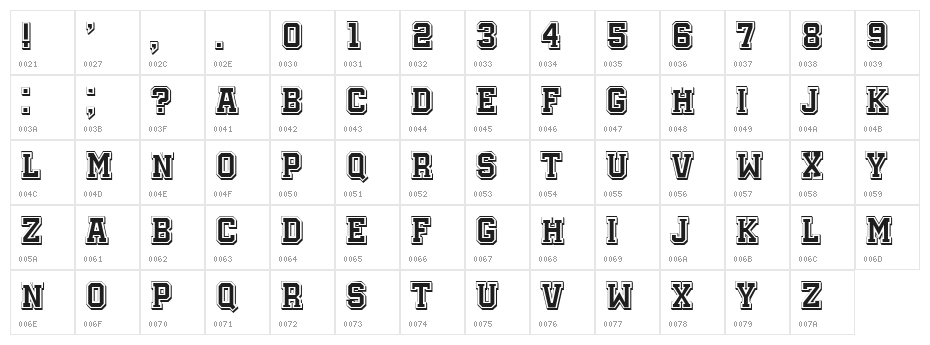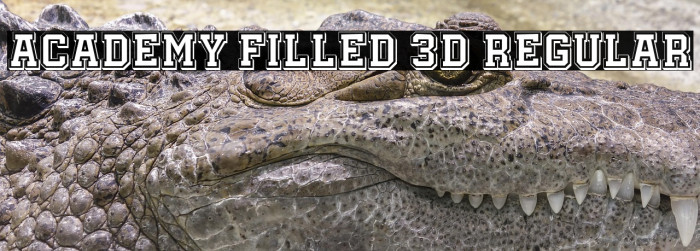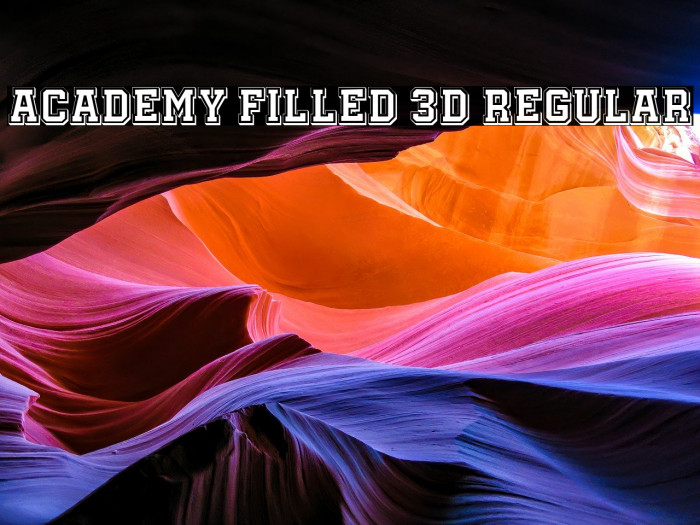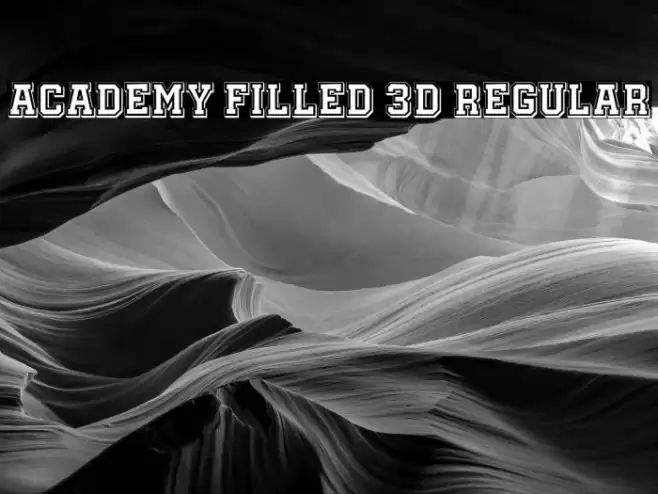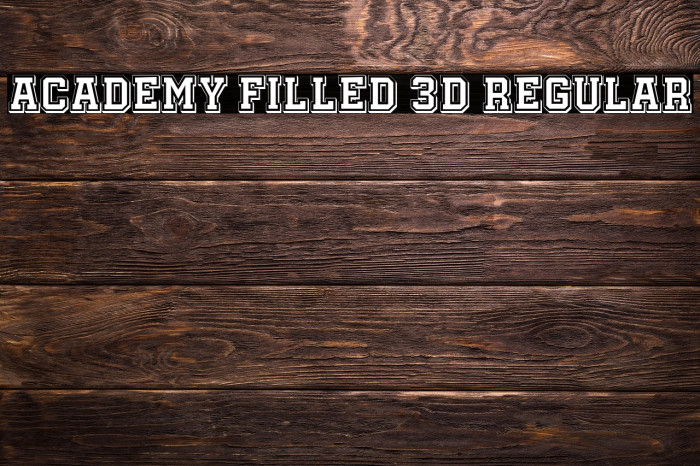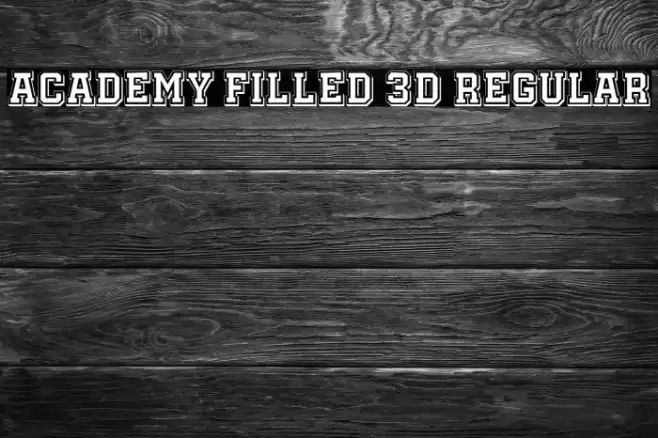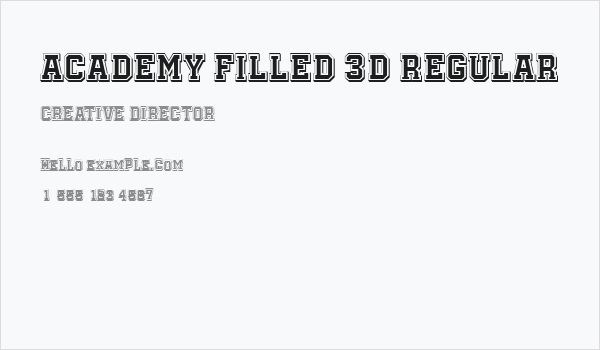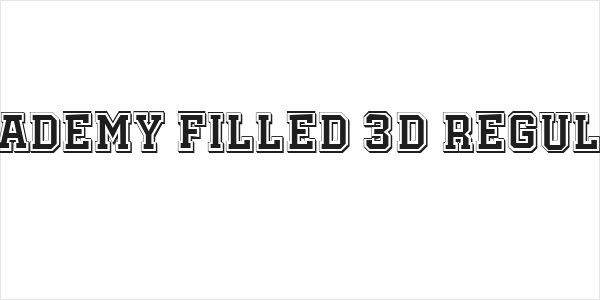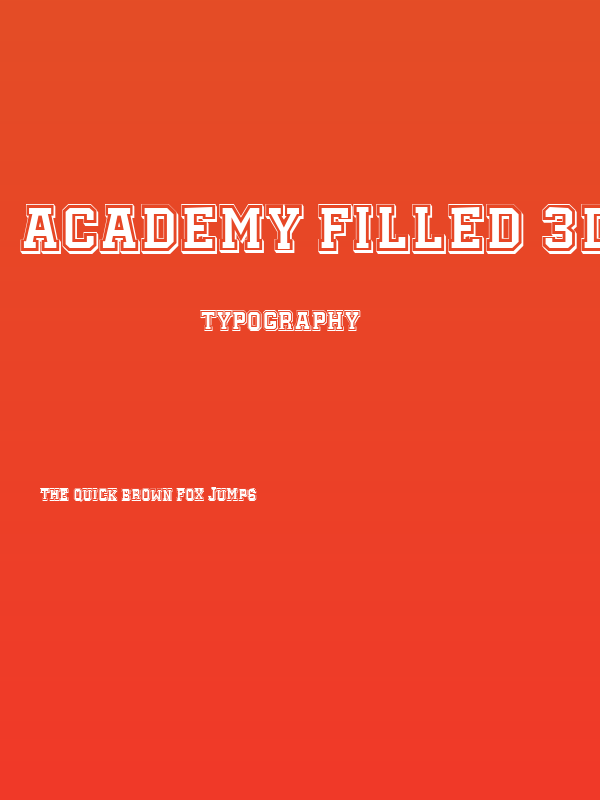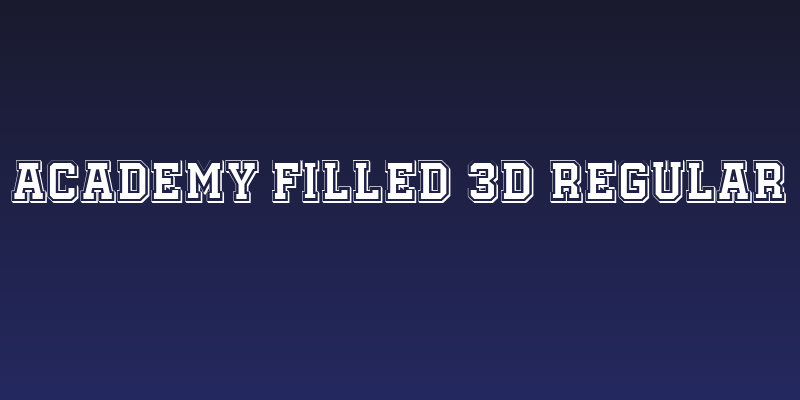
Academy Filled 3D Regular Font
Academy Filled 3D Regular Description
This font features a bold, three-dimensional design with a filled interior and a strong outline, creating a striking visual impact. The characters are uppercase and have a blocky, geometric structure, giving them a robust and authoritative appearance. The 3D effect is achieved through shading and layering, adding depth and dimension to each letter. The font is highly legible and makes a strong statement, suitable for attention-grabbing headlines or titles. Its boldness and unique style make it ideal for projects that require a powerful and dynamic visual presence.
| Proposed Projects | Ideal for sports team branding, event posters, and any design needing a bold, dynamic look. |